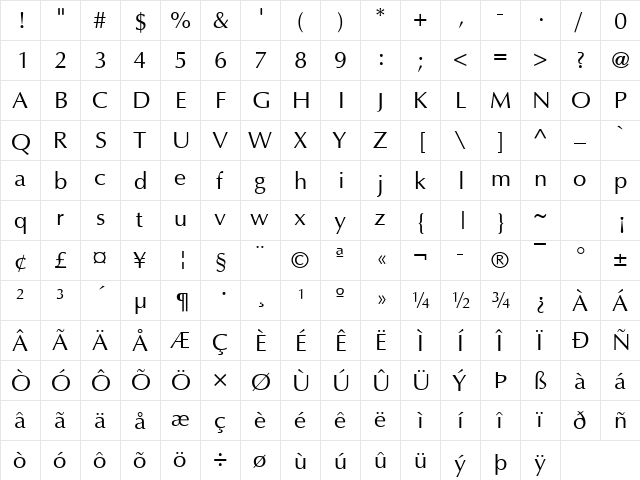
Optimum Regular
Design Context for Optimum Typeface
Optimum takes a measured approach to typography — its balanced proportions and neutral character make it a reliable workhorse for both digital and print work.
Pro Tip: Use Optimum in both headline and body roles to test its range before committing to a single application.